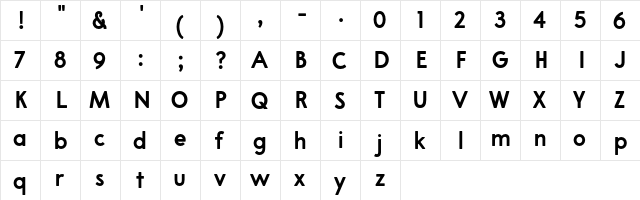
A Pompadour Bold Sample Regular
| Designer | Ana Parracho |
Design Context for A Pompadour Bold Sample Typeface
A Pompadour Bold Sample offers clean, dependable letterforms without strong stylistic allegiance, making it a practical choice for designers who need flexibility. The heavy weight commands attention and anchors typographic hierarchies.